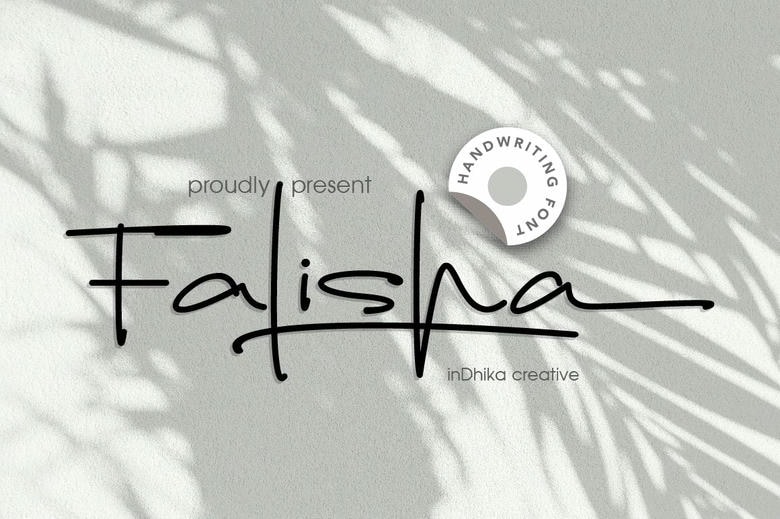
Falisha Font
Falisha is a graceful and simple handwritten font that forms a capable letter, this font makes your work more beautiful and attractive. You can use this font for your design needs, such as greeting cards, motivations words perfect for notes, invitations, and more.
Falisha Handwritten Script Font